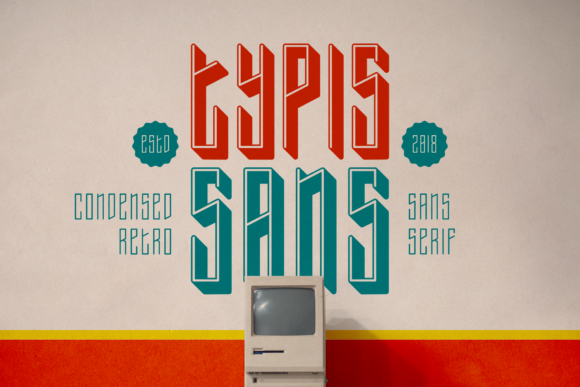
Step inside the world of Typis, a stunning display font that exudes elegance and sophistication. This geometric masterpiece is the brainchild of Herbanuts, a visionary designer who poured their heart and soul into creating a font that captivates the senses and ignites creativity.
With Typis, your designs will transcend the ordinary and take on a life of their own. Its clean lines and sharp angles lend a modern touch to any project, whether it's a captivating web design, an unforgettable business card, or a personal touch to your creative endeavors.
Unleash your inner musician with Typis, the perfect font for music scores. Its beautifully crafted characters dance across the page, capturing the essence of every note and chord. Let your compositions come alive with a font that understands the language of music.
Transport yourself to a realm of endless possibilities with Typis. Its versatility knows no bounds, allowing you to craft designs that speak volumes. From sleek and minimalist to bold and eye-catching, Typis effortlessly adapts to your vision, making it the perfect choice for any project.
As you embark on your creative journey with Typis, you'll discover a world of beauty and inspiration. Its charm will weave its way into your designs, leaving a lasting impression on all who behold it.